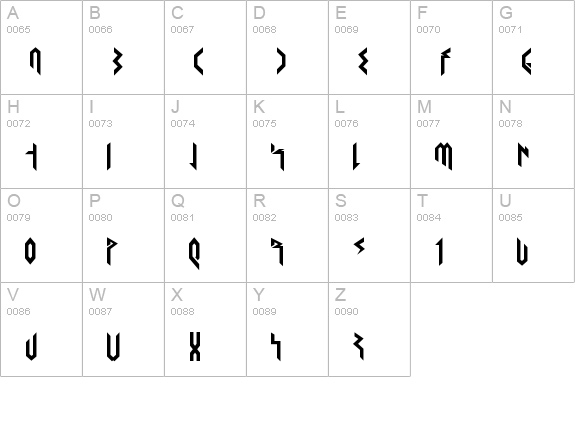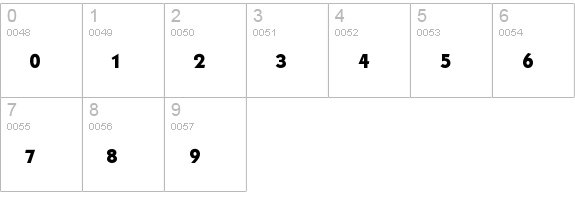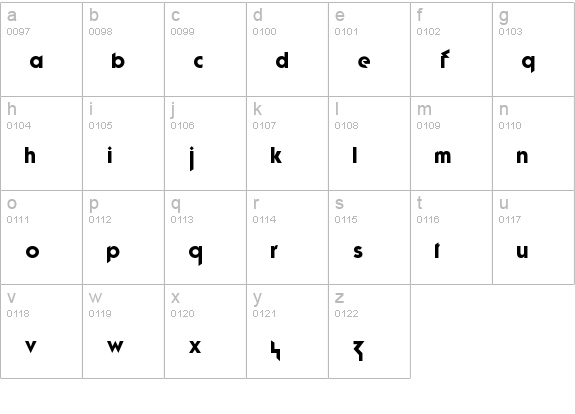
Introducing Fujita Ray, a stunningly elegant and versatile font that is sure to captivate and inspire. This font is the epitome of sophistication, with its clean lines and distinctive curves, creating a harmonious balance between modern and timeless design. Fujita Ray effortlessly exudes a sense of refined grace, making it the perfect choice for a wide range of creative projects. Whether you're designing a logo, crafting a captivating headline, or creating stunning typography for your next publication, Fujita Ray will elevate your work to new heights. This font's versatility knows no bounds, as it effortlessly adapts to various design styles and applications. Its sleek and legible letterforms make it ideal for both print and digital media, ensuring that your message is always conveyed with clarity and impact. But what truly sets Fujita Ray apart is its availability. Yes, that's right – this exceptional font is free! You can easily download it at FontsMarket.com, a trusted source for high-quality fonts. With just a few clicks, you can have Fujita Ray at your fingertips, ready to bring your creative visions to life. So why wait? Embrace the elegance and versatility of Fujita Ray today. Whether you're a professional designer or an aspiring creative, this font is sure to become an invaluable asset in your typographic toolbox. Download it for free at FontsMarket.com and unlock a world of endless possibilities.